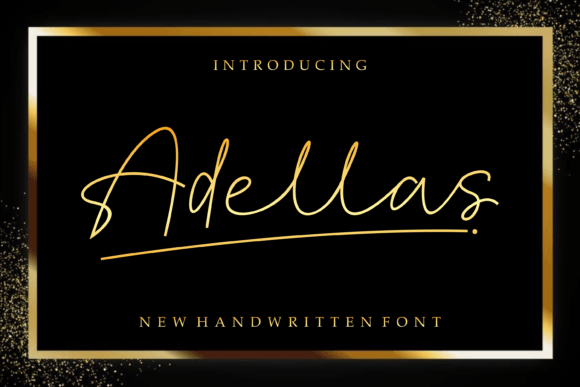
The Adellas Font: A Charming Script for Modern Designs
I’ll never forget the time I was working on a project for a client who wanted a font that was both elegant and quirky. I spent hours scouring the internet for the perfect script font, but nothing seemed to fit the bill. That was until I stumbled upon Adellas Font. With its unique alternative features and charming style, it was love at first sight! In this article, I’ll share my experience with Adellas Font, its features, and how to make the most of it in your designs.
An Honest Review of Adellas Font
- ✨ Unique alternative features that add a touch of personality to your designs
- ✅ Elegant and modern style that’s perfect for a wide range of projects
- 💫 Highly legible, even at small font sizes
- 🎨 Versatile and can be used for various design applications, from branding to invitations
While Adellas Font is an excellent choice, there are a few things to keep in mind:
- ⚠️ Some of the alternative features can be a bit finicky to access, depending on the software you’re using
- 🤔 The font may not be suitable for very formal or traditional designs, as it has a slightly playful edge
A Practical Guide to Using Adellas Font
The Backstory of Adellas Font
Adellas Font was designed with the intention of creating a unique and elegant script font that would add a touch of personality to modern designs. The designer wanted to create a font that was both stylish and legible, with a range of alternative features that would allow designers to customize their text. While the exact details of the designer’s inspiration are unknown, it’s clear that Adellas Font was created with the modern designer in mind.
Q: What makes Adellas Font unique?
A: Adellas Font is unique due to its alternative features and elegant style. It has a range of stylistic alternates, glyphs, and OpenType features that allow designers to customize their text.
Q: Is Adellas Font suitable for formal designs?
A: While Adellas Font is elegant and modern, it may not be suitable for very formal designs due to its slightly playful edge. However, it’s versatile enough to be used for a wide range of projects.